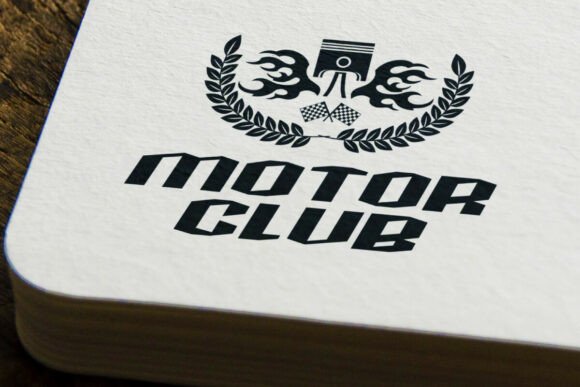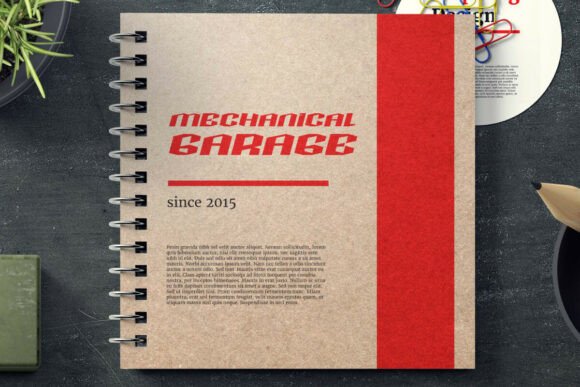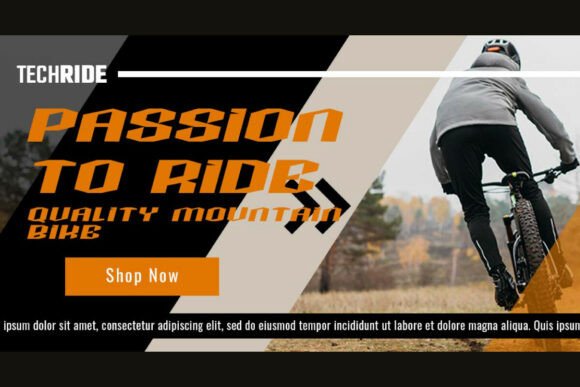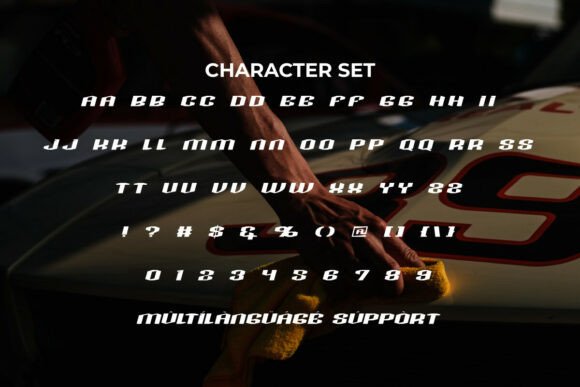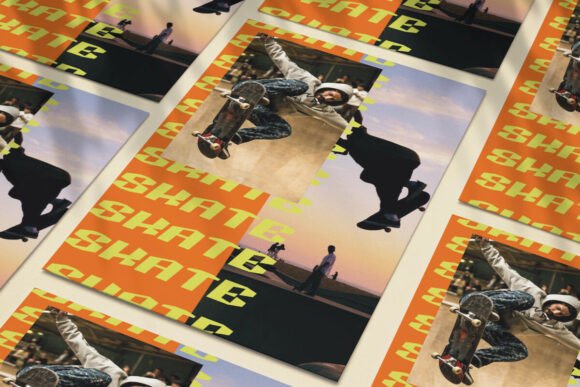
Introduction to Racing Robot Font
Racing Robot is an adrenaline-fueled display font designed with sharp angles and a swift, dynamic slant, perfectly embodying speed, technology, and high-octane competitive energy.
This impactful, all-caps Racing Robot font is engineered with aggressively pointed terminals and streamlined forms that suggest motion and futuristic mechanics, making it the ideal typeface for motorsports, e-sports teams, and high-performance branding Its bold, condensed structure ensures strong visibility on merchandise, banners, and digital scoreboards, conveying unmistakable power and a cutting-edge aesthetic.
Key Features of Racing Robot Font
Why Choose Racing Robot Font?